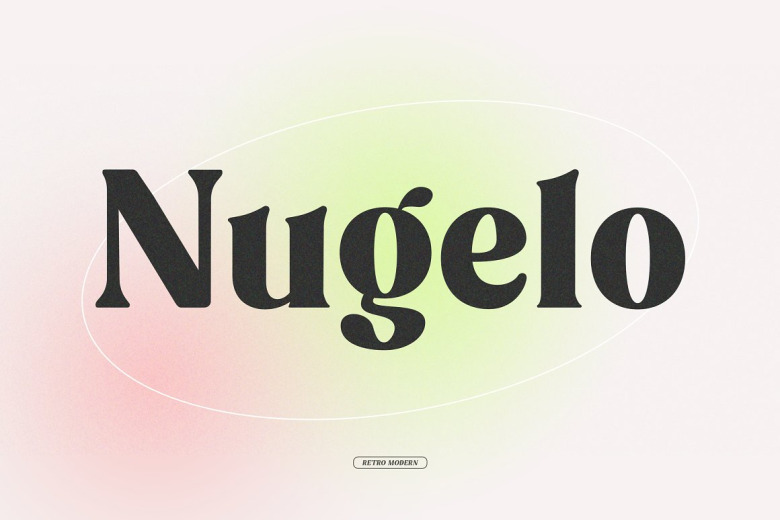
Nugelo Font
Nugelo Serif Font is a retro modern serif font, comes with stylishtic alternates and ligatures. This font is equipped uppercase, lowercase ,numeric and symbols. This font will be suitable for your various design needs such as branding, logo, poster, headlines and many others.
Nugelo Retro Serif Font